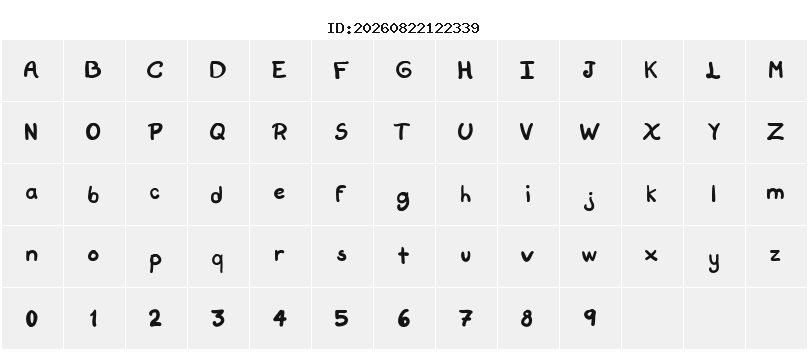
Script Soft Preview
• Font Name: Script Soft
• Full Font Name: Script Soft
About Script Soft.ttf
Script Soft.ttf is a modern, elegant sans-serif font designed for ultimate readability and visual harmony. Perfect for branding, headlines, web design, and print materials.